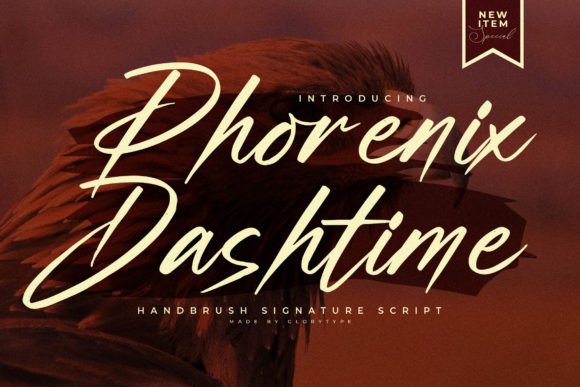
Prepare to be mesmerized by Phorenix Dashtime, the script font that will ignite your creativity and transform your designs into breathtaking masterpieces. Its elegant curves and enchanting characters will cast a spell on your audience, leaving them captivated by the beauty of your words.
Step into a world of endless possibilities with Phorenix Dashtime, the ultimate font for banner designs. Its captivating style will elevate your designs to new heights, making them stand out from the crowd and leaving a lasting impression on your audience.
Unleash your inner artist and explore the boundless potential of Phorenix Dashtime. Its versatility knows no bounds, making it the perfect choice for a wide range of projects. From eye-catching social media posts to stunning invitations, this font will add a touch of sophistication and charm to your creations.
With Phorenix Dashtime, the possibilities are endless. Let your imagination soar and watch as your designs come to life with a touch of elegance and a dash of magic. Whether you're a seasoned designer or just starting out, this font will empower you to create something truly extraordinary.